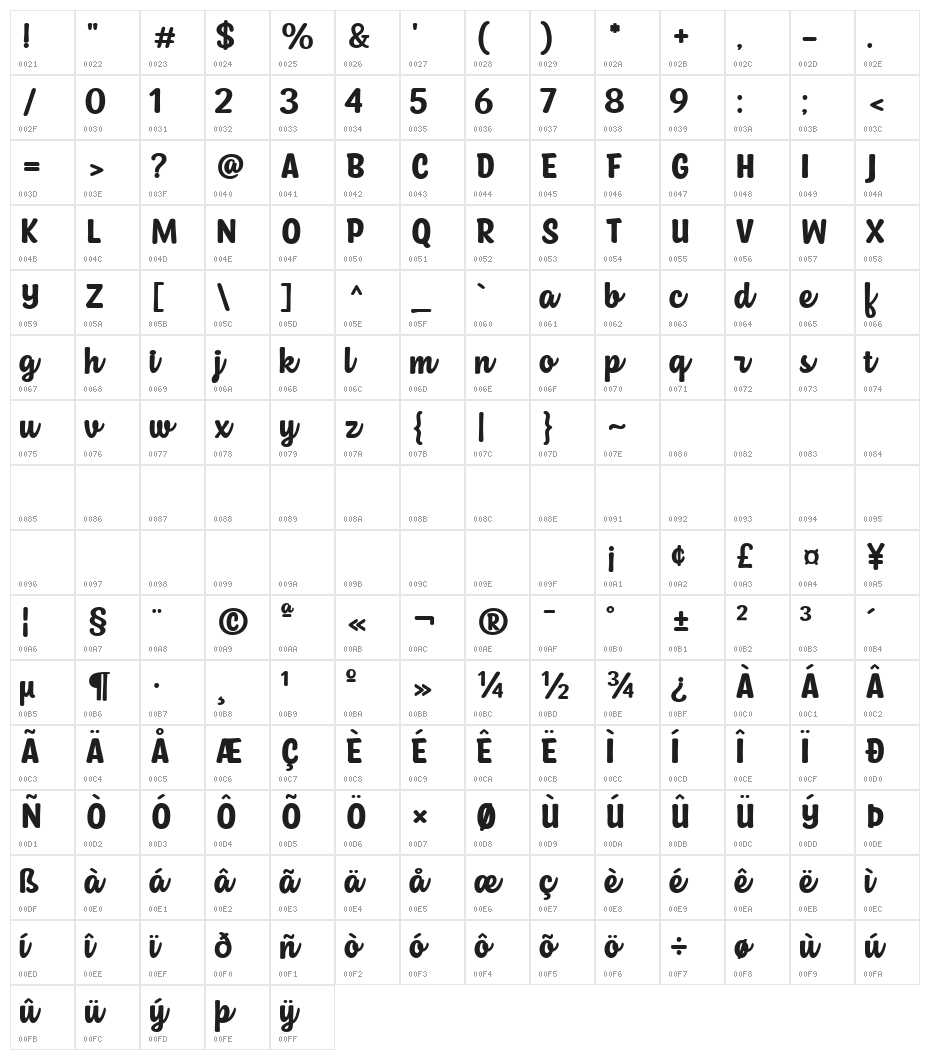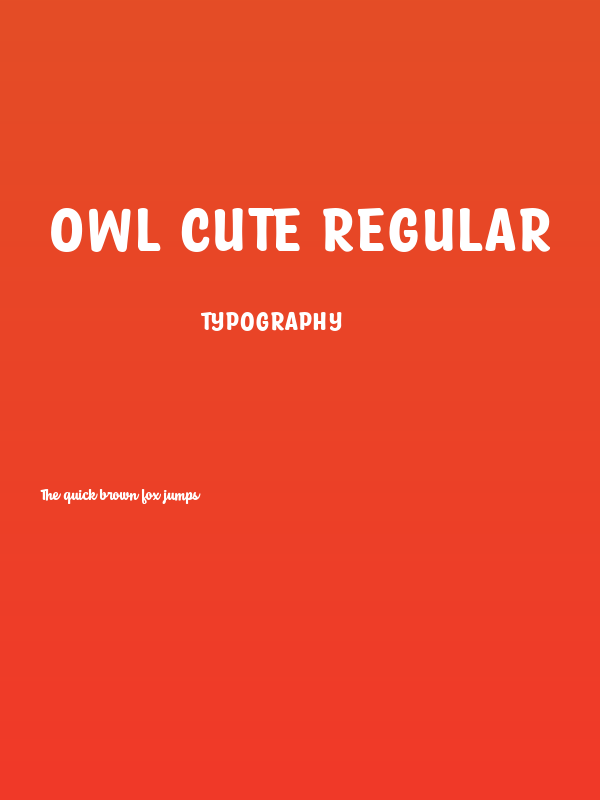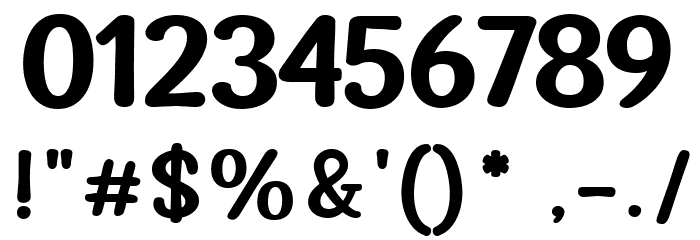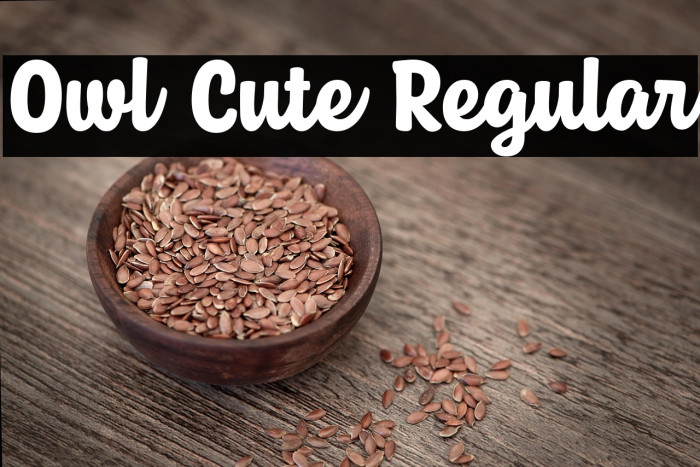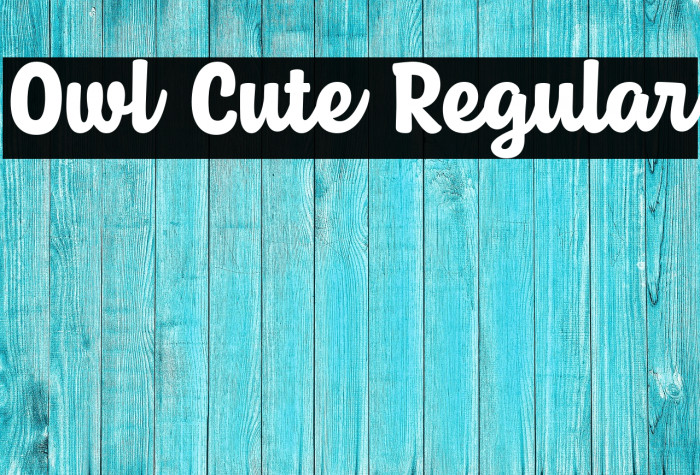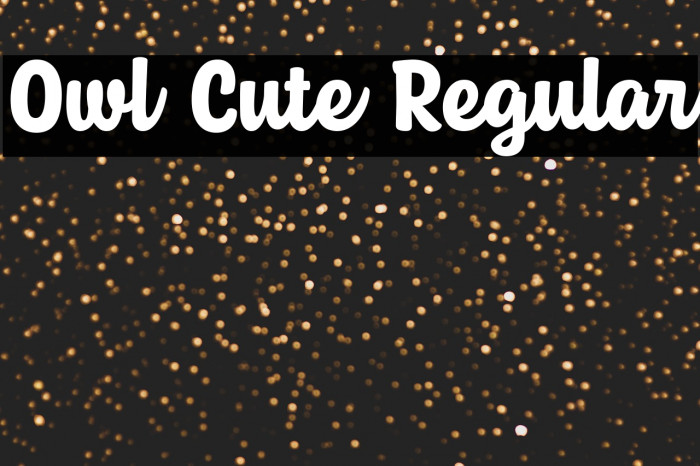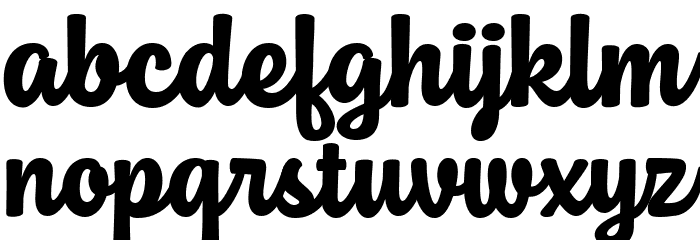
Owl Cute Regular Font
Owl Cute Regular Description
This playful and whimsical font features bold, rounded characters with a smooth, flowing style. The uppercase letters are uniform in height, while the lowercase letters exhibit a charming script-like quality, adding a touch of elegance. The numerals are clear and easy to read, maintaining the same boldness as the alphabet. Special characters are well-integrated, ensuring consistency throughout the font. Its approachable and friendly appearance makes it suitable for a variety of creative projects.
| Proposed Projects | Ideal for children's books, playful branding, greeting cards, and social media graphics. |